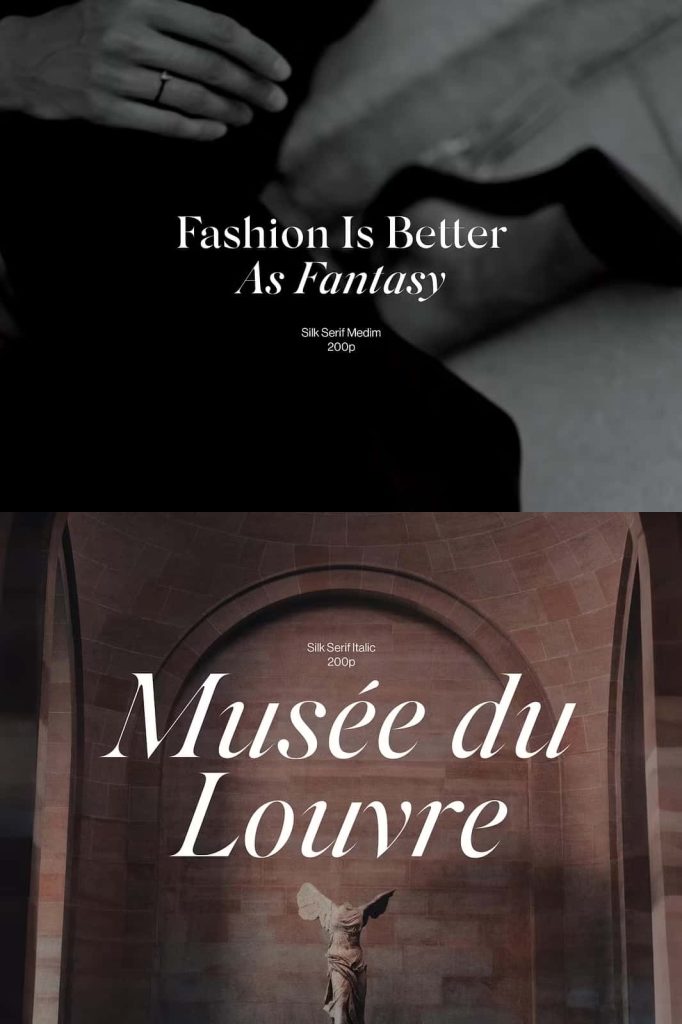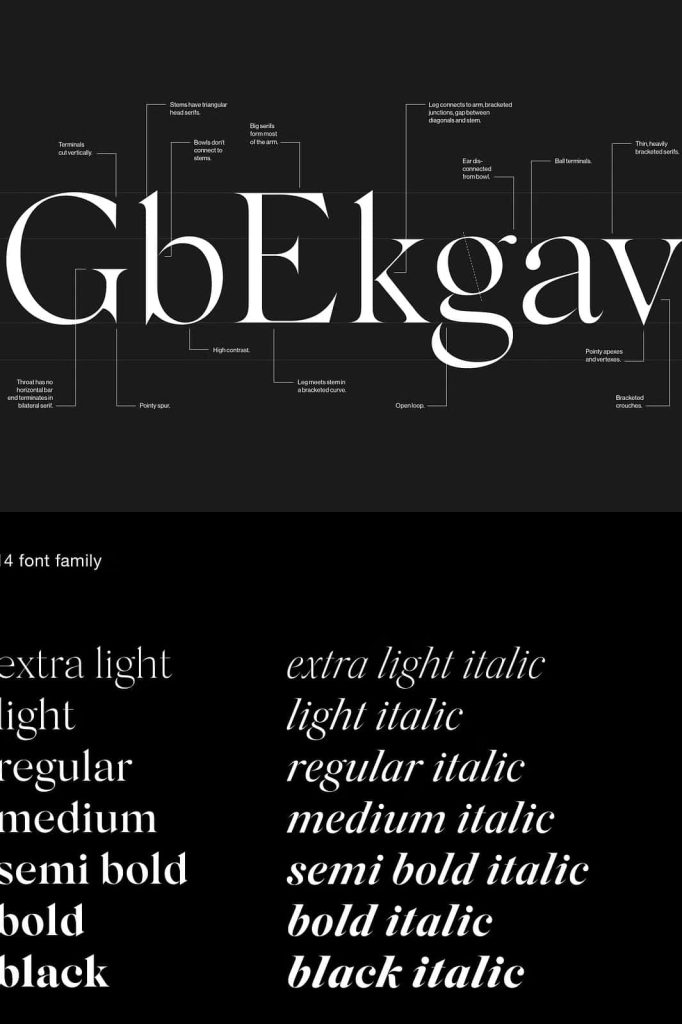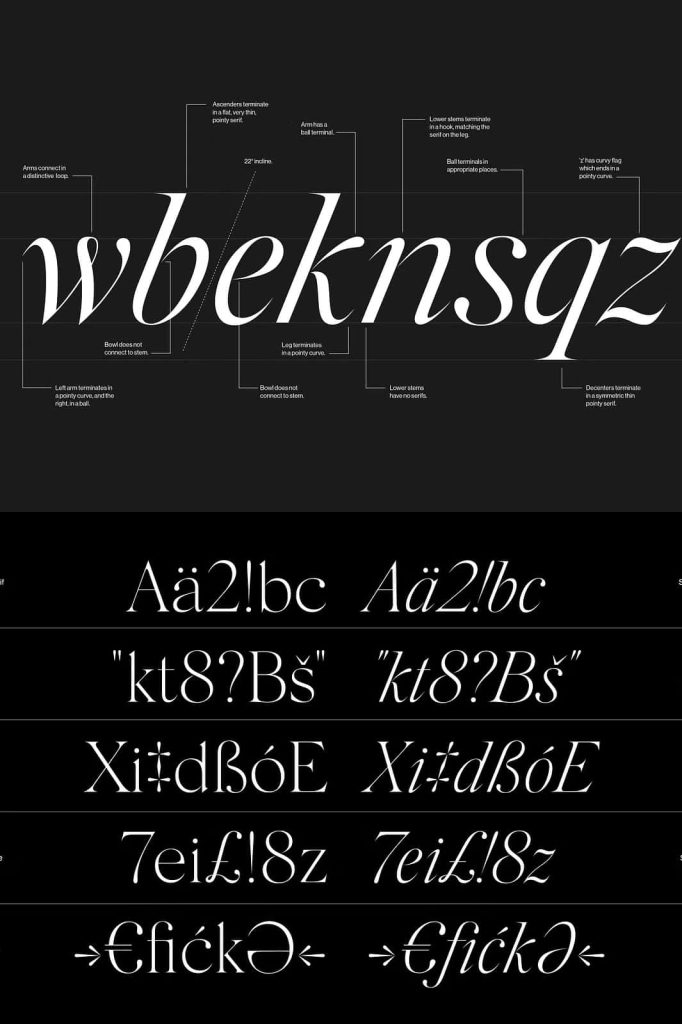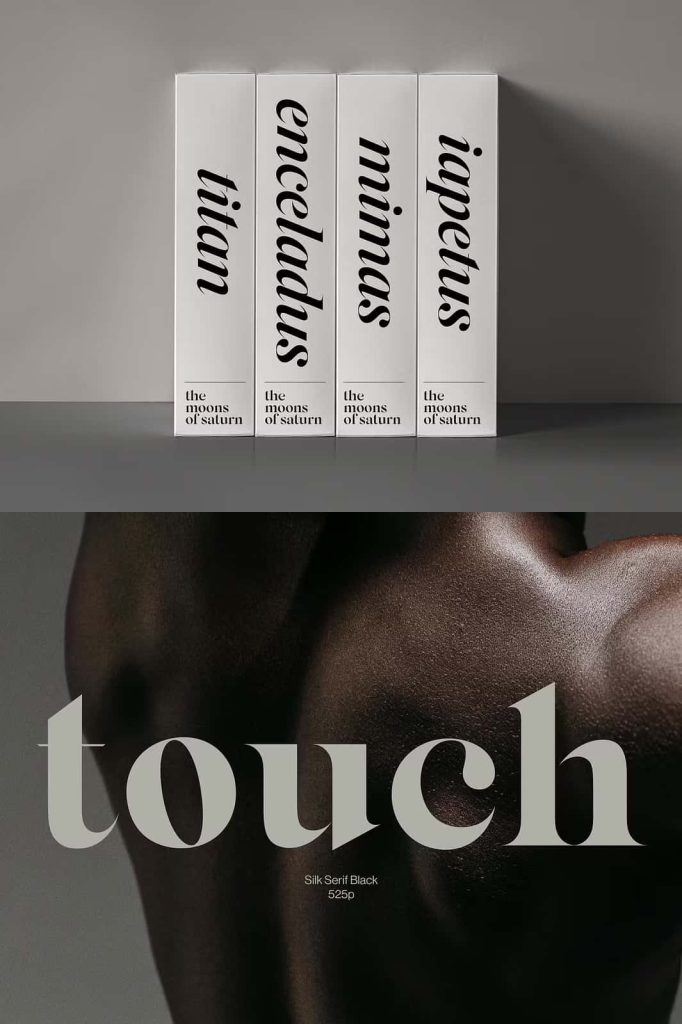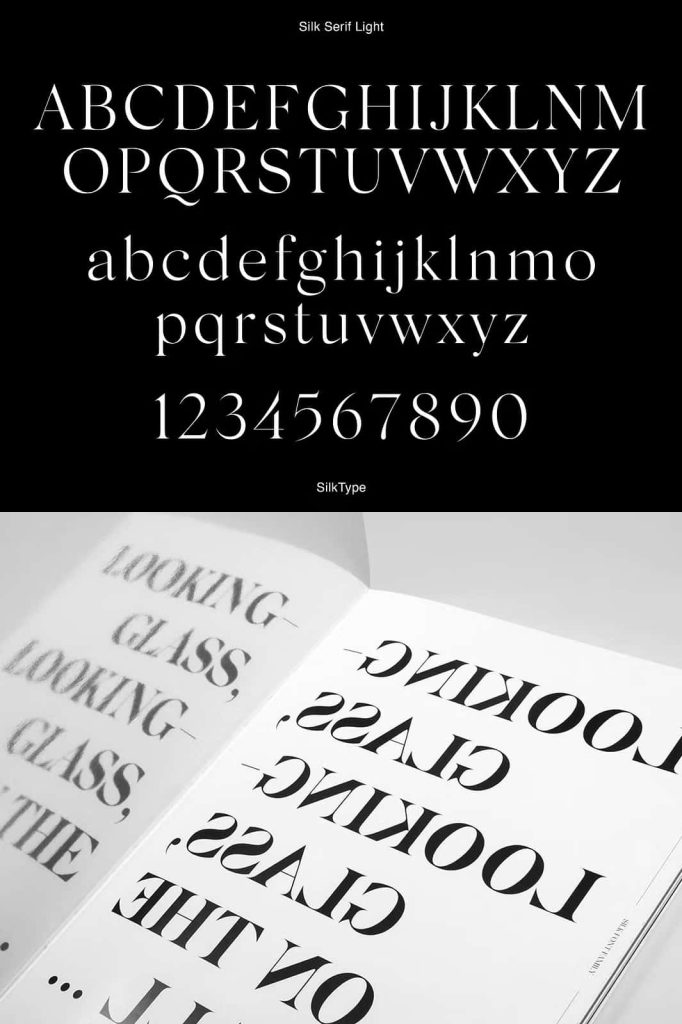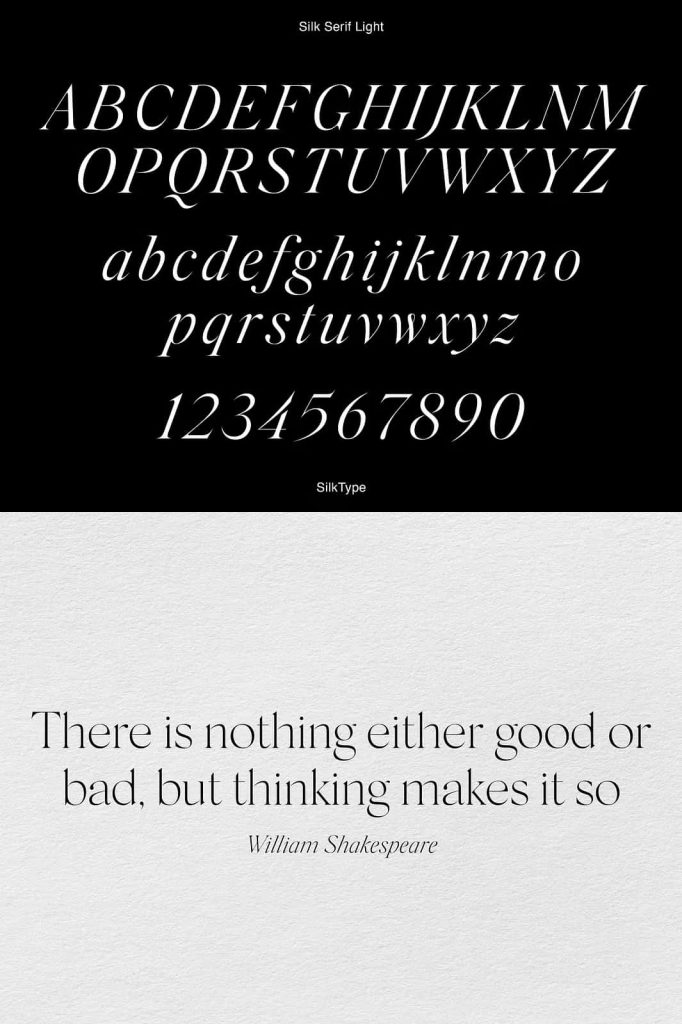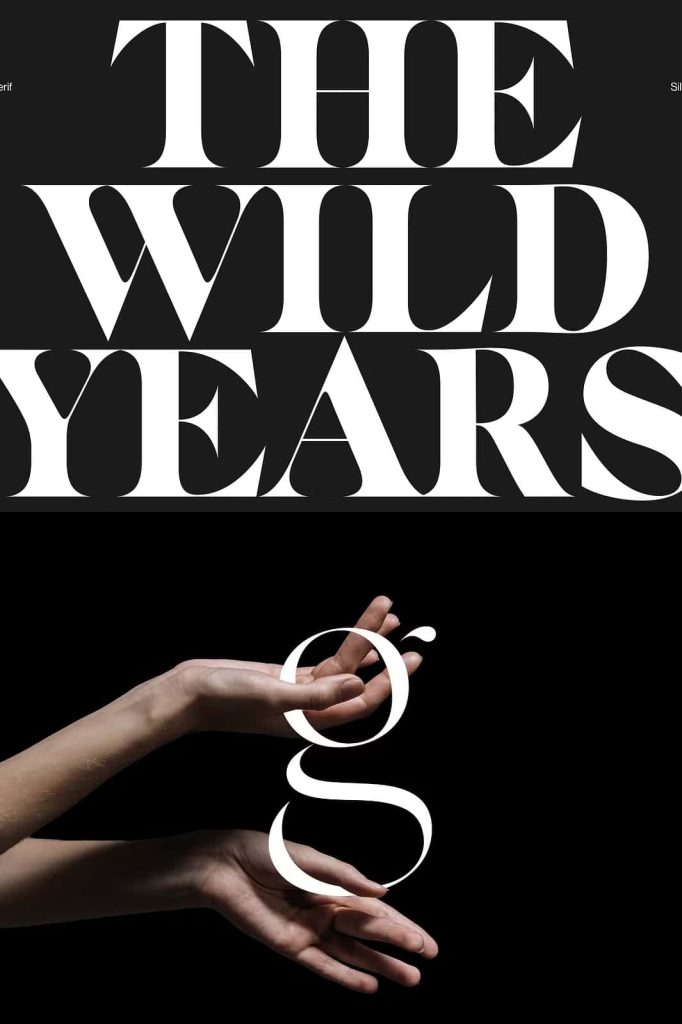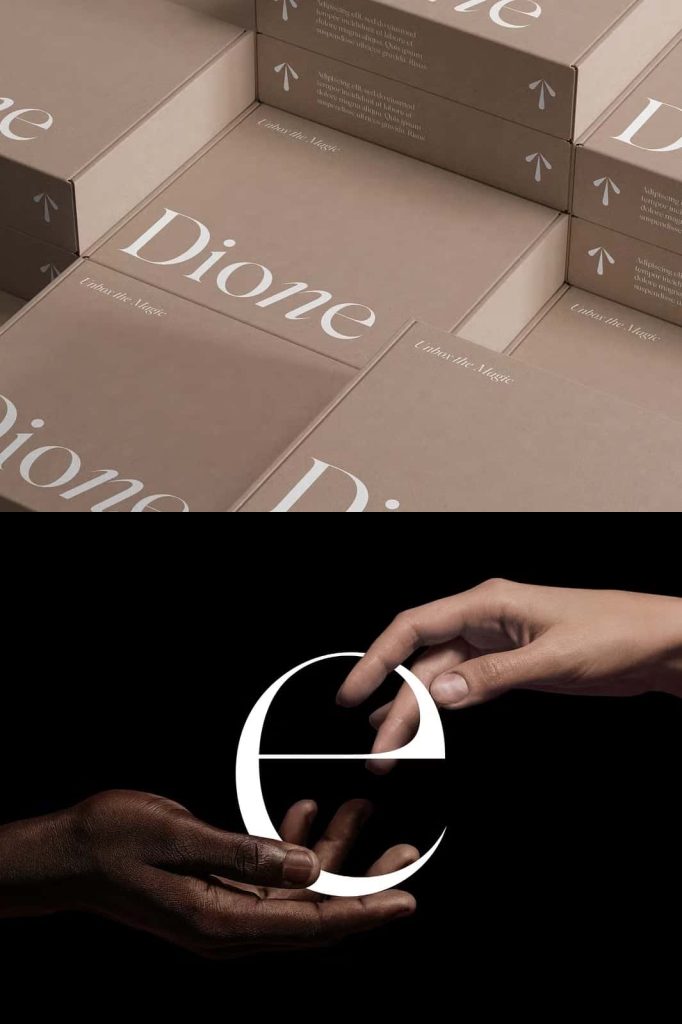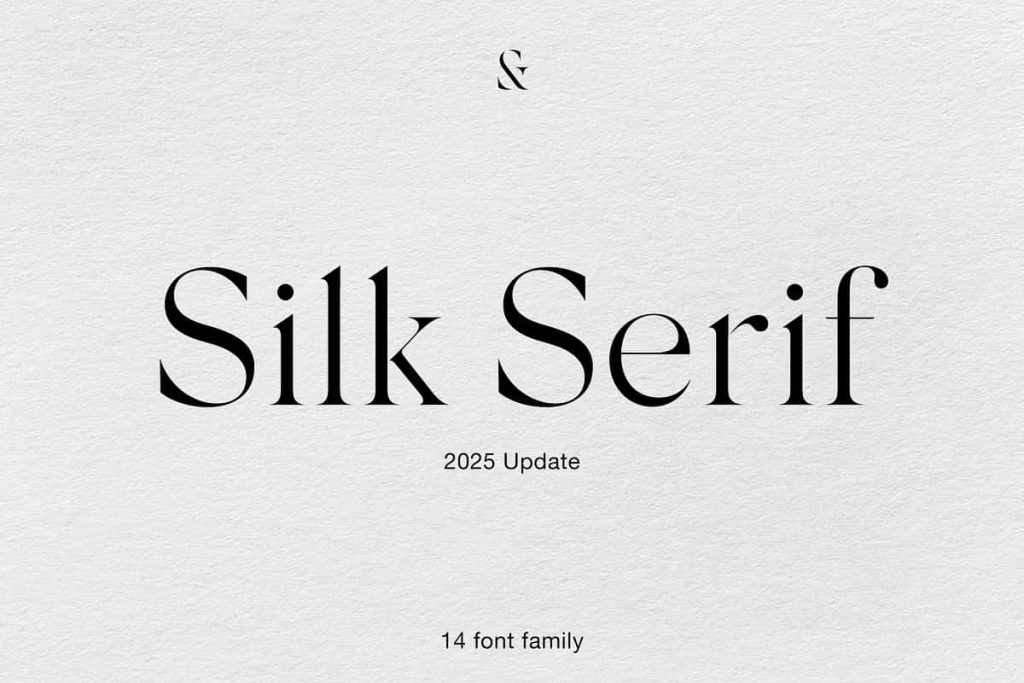
Silk Serif Typeface – A Sophisticated High-Contrast Serif Font for Elegant Design
Silk Serif is a refined and sophisticated high-contrast typeface created for designers who value elegance, precision, and timeless beauty. Featuring delicate strokes, sharp details, and carefully crafted letterforms, this serif font delivers a luxurious visual experience that instantly elevates any design project. Its graceful structure combines traditional serif influences with contemporary design sensibilities, making it an exceptional choice for premium branding, editorial layouts, packaging, and high-end visual communication.
The typeface showcases thin, pointed, heavily bracketed serifs, elegant ball terminals, and beautifully designed junctions throughout its character set. These details contribute to its distinctive personality while maintaining impressive readability. One of Silk Serif’s most recognizable characteristics is the unique relationship between its bowls and stems. Although these elements appear connected at first glance, they are subtly separated, creating a fascinating visual illusion that adds sophistication and originality to every letterform.
Whether you are designing for luxury brands, fashion publications, beauty products, corporate identities, or premium marketing materials, Silk Serif provides the elegance and versatility needed to create unforgettable visual impressions.
A High-Contrast Serif Typeface with Distinctive Character
Silk Serif embraces the classic beauty of high-contrast typography while introducing unique design elements that set it apart from traditional serif fonts. The contrast between thick and thin strokes creates visual drama and elegance, allowing headlines and display text to command attention without overwhelming the overall design.
Its finely crafted details provide a sense of refinement that appeals to luxury-focused brands and sophisticated audiences. Every character has been carefully designed to balance beauty and functionality, ensuring that text remains readable while maintaining an elevated aesthetic.
The result is a typeface that communicates confidence, quality, and professionalism across both digital and print applications.
Elegant Bracketed Serifs and Refined Typography Details
One of the defining features of Silk Serif is its beautifully constructed bracketed serifs. These carefully shaped extensions create smooth transitions between stems and serifs, contributing to the font’s graceful appearance. The pointed serif forms add precision and sophistication, enhancing the overall elegance of the typeface.
In addition to its distinctive serifs, Silk Serif incorporates decorative ball terminals positioned throughout select characters. These subtle details add visual interest and personality while preserving the font’s refined and professional appearance.
The bracketed junctions found within several letterforms further reinforce the typeface’s craftsmanship. These thoughtful design elements create harmony and consistency throughout the character set, resulting in typography that feels polished and expertly constructed.
Key Design Features
- High-contrast serif construction
- Thin and elegant pointed serifs
- Decorative ball terminals
- Smooth bracketed junctions
- Distinctive disconnected bowl structure
- Excellent readability and clarity
- Luxury-inspired visual aesthetic
A Unique Optical Illusion in Every Letterform
Perhaps the most remarkable aspect of Silk Serif is the subtle disconnection between its bowls and stems. Rather than fully connecting these components, the typeface positions them extremely close together, creating the illusion of a seamless connection. This unique typographic feature adds intrigue and originality without compromising readability.
The visual effect rewards closer inspection and contributes to the font’s sophisticated identity. Designers who appreciate fine typographic details will find this characteristic particularly appealing, as it introduces an element of craftsmanship rarely seen in conventional serif typefaces.
This innovative approach allows Silk Serif to stand out in branding and editorial applications where distinctive typography can significantly influence audience perception.
Perfect for Luxury Branding and Identity Design
Luxury brands require typography that reflects quality, exclusivity, and attention to detail. Silk Serif delivers all these qualities through its elegant design and refined structure. The typeface helps businesses establish strong visual identities that communicate sophistication and professionalism.
Fashion houses, beauty brands, jewelry companies, hotels, lifestyle products, and premium service providers can use Silk Serif to create memorable logos, packaging, advertisements, and marketing materials. Its graceful appearance instantly enhances brand perception and creates a sense of prestige.
The typeface works particularly well for brands seeking to position themselves in high-end markets where visual presentation plays a critical role in customer engagement and trust.
For creative professionals who appreciate elegant typography and sophisticated visual communication, Silk Serif offers a perfect balance of delicacy, readability, and style. It is a versatile and distinctive typeface capable of transforming ordinary designs into memorable and premium brand experiences.